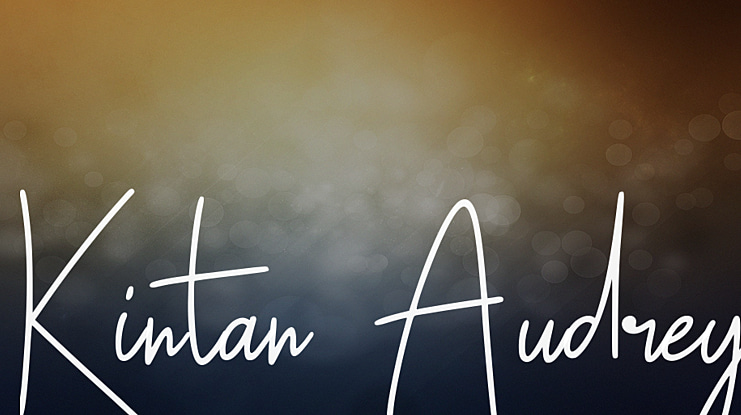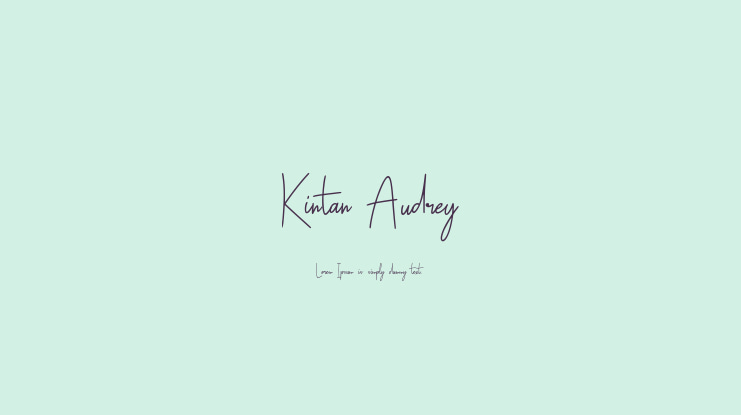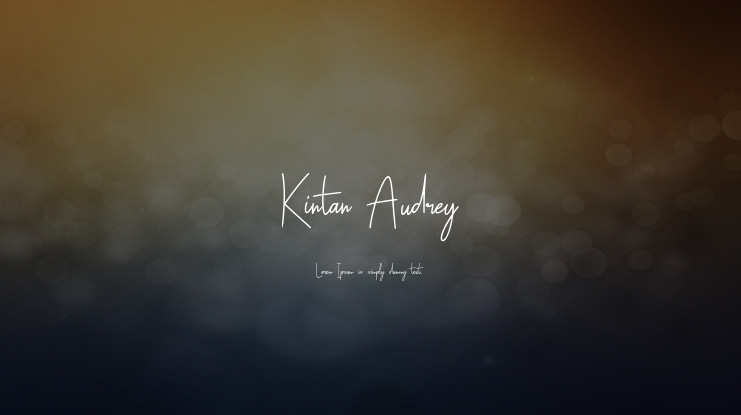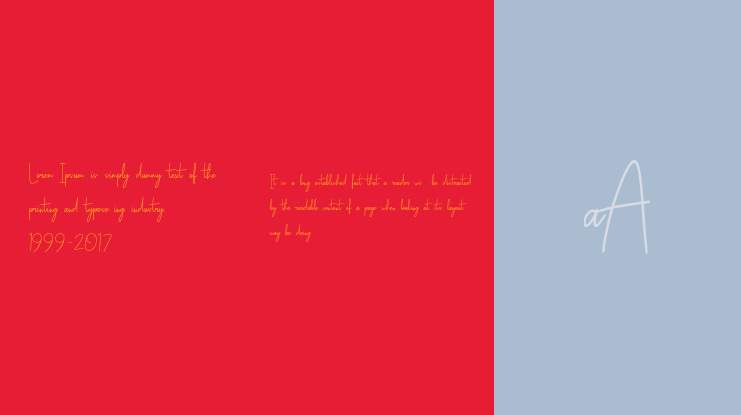
It’s a A Monoline Signature Font. Kintan Audrey is perfect for product packaging, branding project, megazine, social media, wedding, or just used to express words above the background.